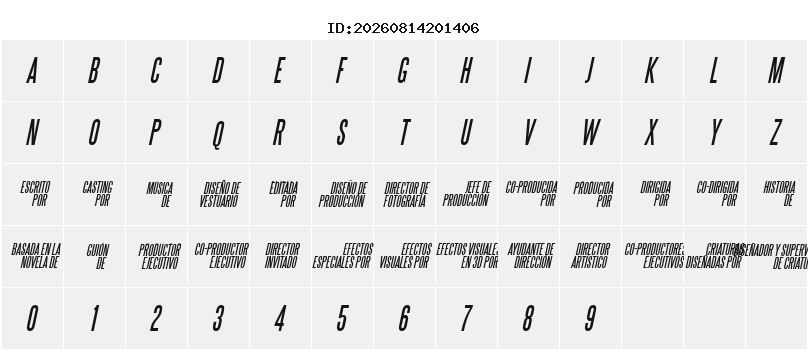
Steel Tongs Esp Italic Preview
• Font Name: Steel Tongs Esp Italic
• Manufacturer: TracerTong
• Description: (Modified Steelfish by Larabiefonts.com).
About Steel Tongs Esp Italic.ttf
Steel Tongs Esp Italic.ttf is a modern, elegant sans-serif font designed for ultimate readability and visual harmony. Perfect for branding, headlines, web design, and print materials.